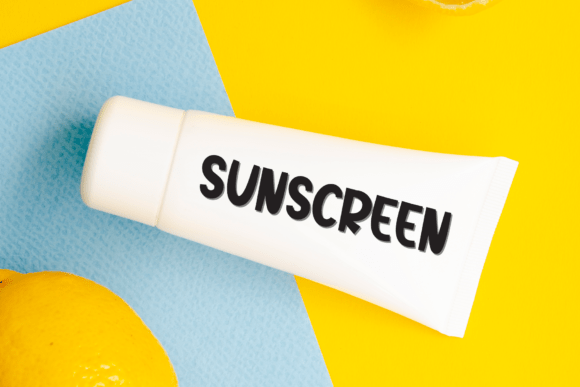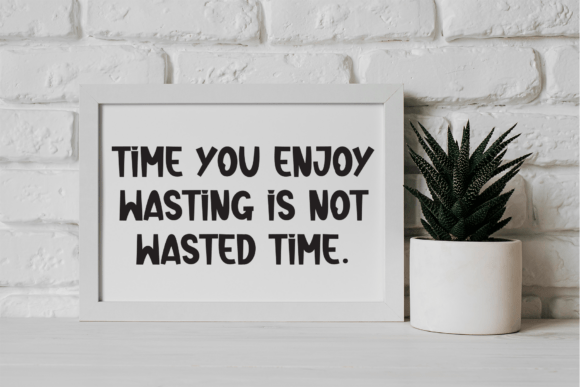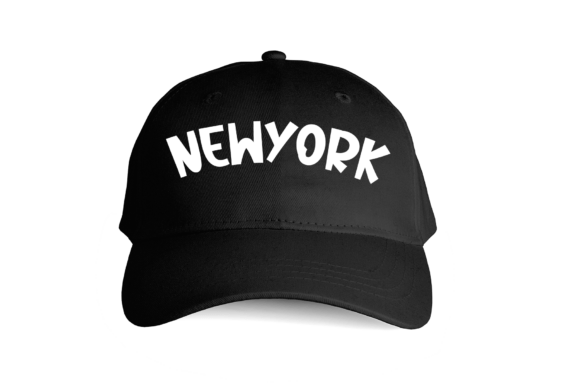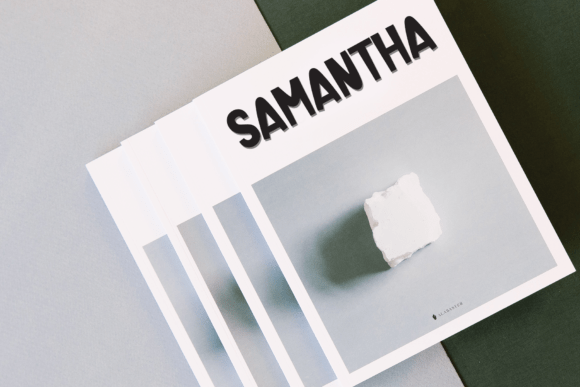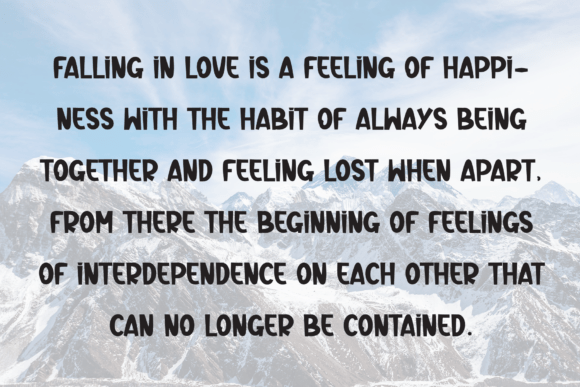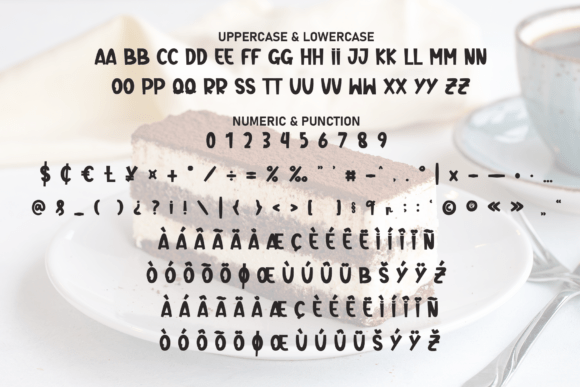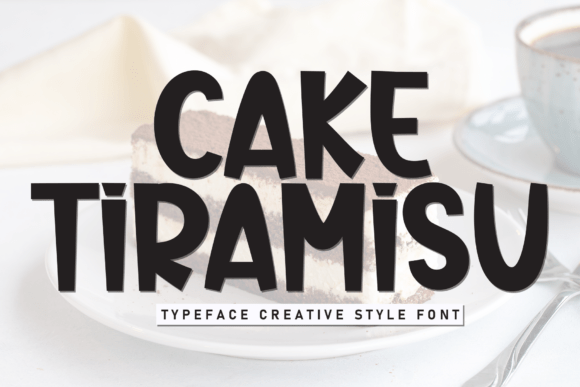
The Sweet Spot: Discovering Cake Tiramisu Font
I’ll never forget the time I was working on a bakery branding project, and my client asked for a font that would make their cake shop stand out. I scoured the internet, tried out dozens of fonts, but nothing seemed quite right. That was until I stumbled upon Cake Tiramisu Font. It was love at first sight! 😍 With its bold, creative display and quirky cuts, it was the perfect fit for the job. In this article, I’ll share my experience with Cake Tiramisu Font, and explore its features, uses, and alternatives.
A Honest Review: The Good, the Bad, and the Delicious
- ✨ Unique and quirky design: Cake Tiramisu Font has a one-of-a-kind personality that adds charm to any project.
- ✅ Highly versatile: It can be used for bakery branding, café menus, product packaging, and food-related projects.
- 💡 Easy to read: Despite its creative design, the font remains highly legible, even at smaller sizes.
While Cake Tiramisu Font is an excellent choice for many projects, there are a few things to keep in mind:
- ⚠️ Limited use for formal projects: Due to its bold and playful nature, Cake Tiramisu Font may not be the best fit for formal or professional projects.
- 🤔 Some characters may require adjustment: Depending on the context, some characters may need to be adjusted for optimal spacing and alignment.
Exploring Alternatives: Similar Fonts to Cake Tiramisu
If you like Cake Tiramisu Font, you may also enjoy:
- Great Vibes: A fun, handwritten font with a similar playful personality.
- Lobster: A bold, elegant font with a sophisticated feel.
- Pacifico: A beautiful, modern script font with a relaxed, casual vibe.
- Rock Salt: A quirky, handwritten font with a similar charm to Cake Tiramisu.
The Story Behind Cake Tiramisu Font
Cake Tiramisu Font was designed with the intention of creating a unique and playful font that would add a touch of whimsy to food-related projects. The designer drew inspiration from the world of baking and desserts, aiming to capture the fun and creativity of the culinary world.
Q: Is Cake Tiramisu Font suitable for body text?
A: While Cake Tiramisu Font is highly legible, it’s primarily designed for display use. For body text, you may want to choose a more traditional font.